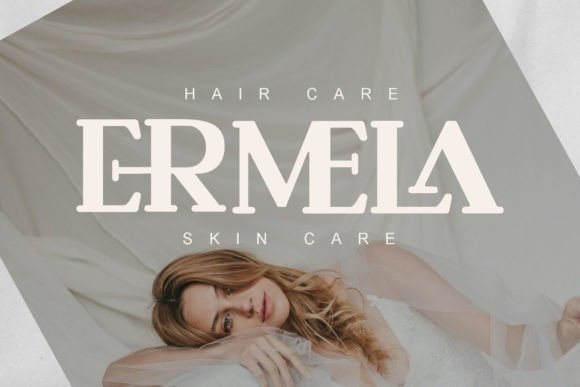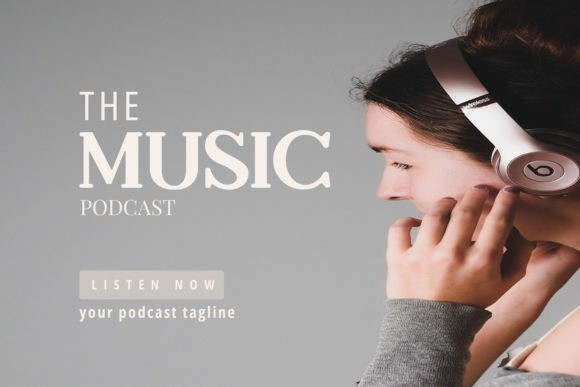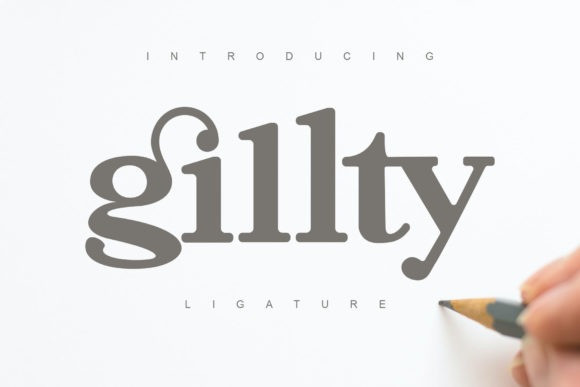
Gillty Ligature Serif Font
Gillty is a simple and modern serif font designed to be simple and easy to read. It will look amazing on any creative project you can think of, so add it with confidence to your designs and make them outstanding!